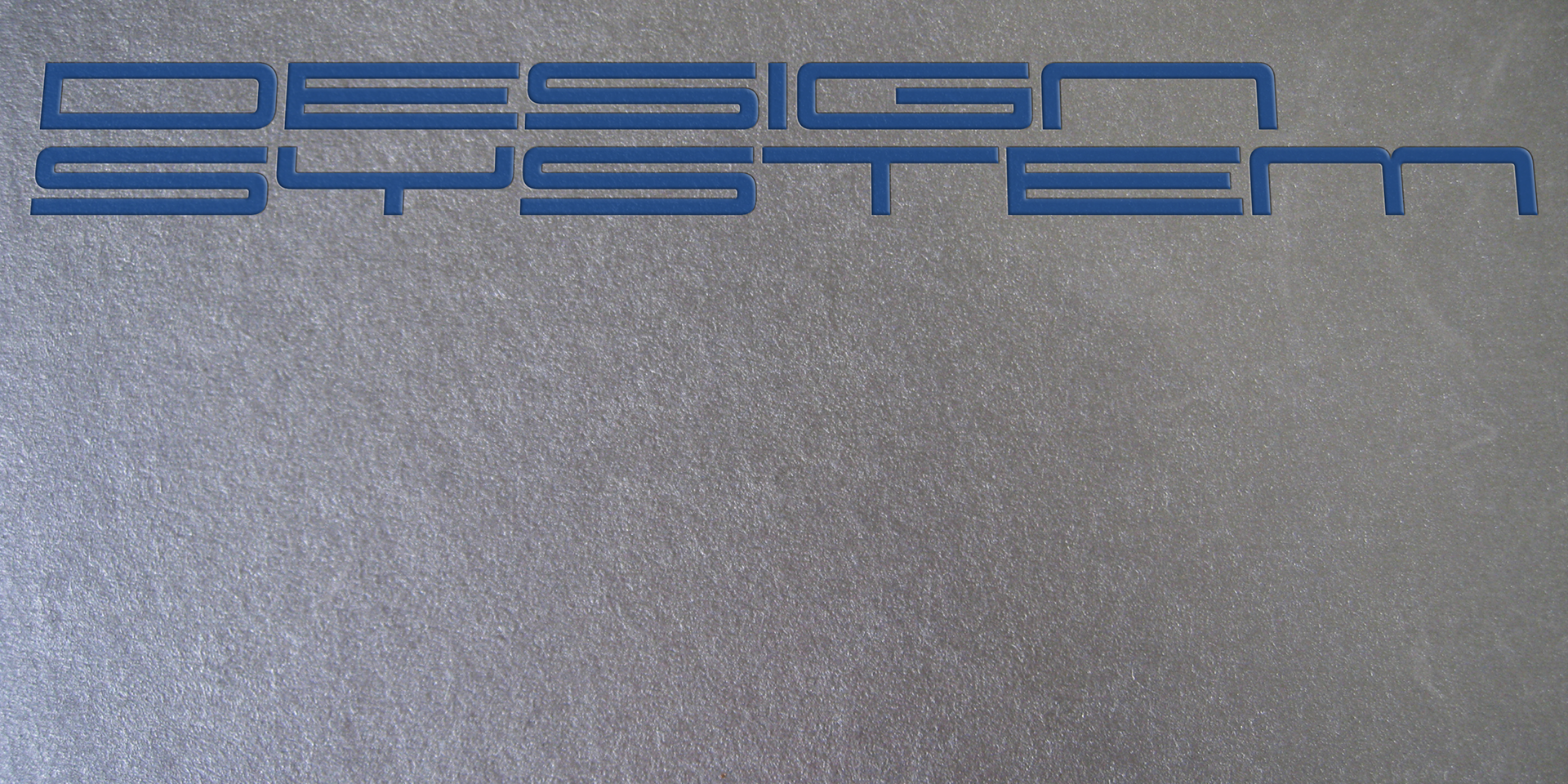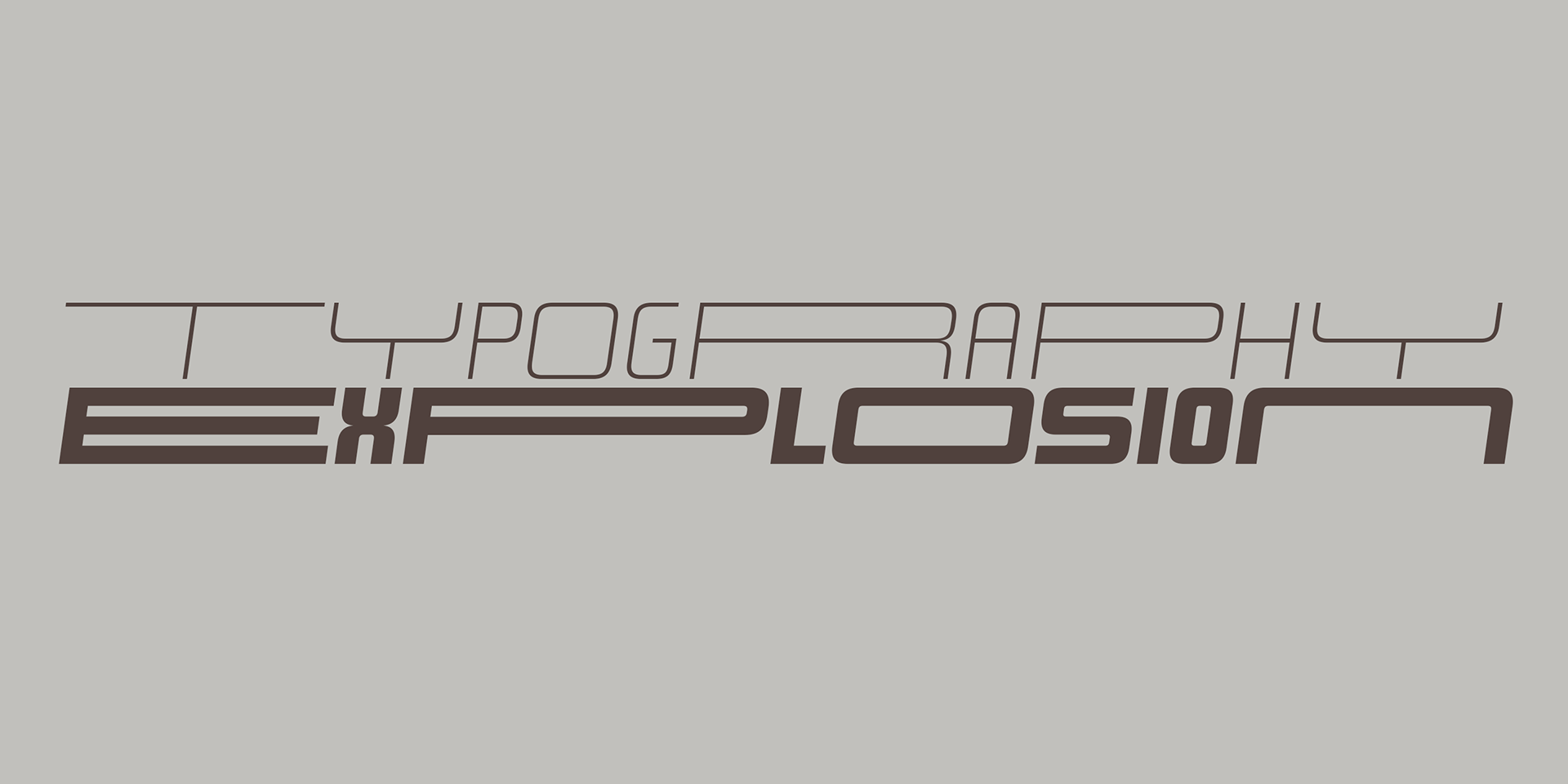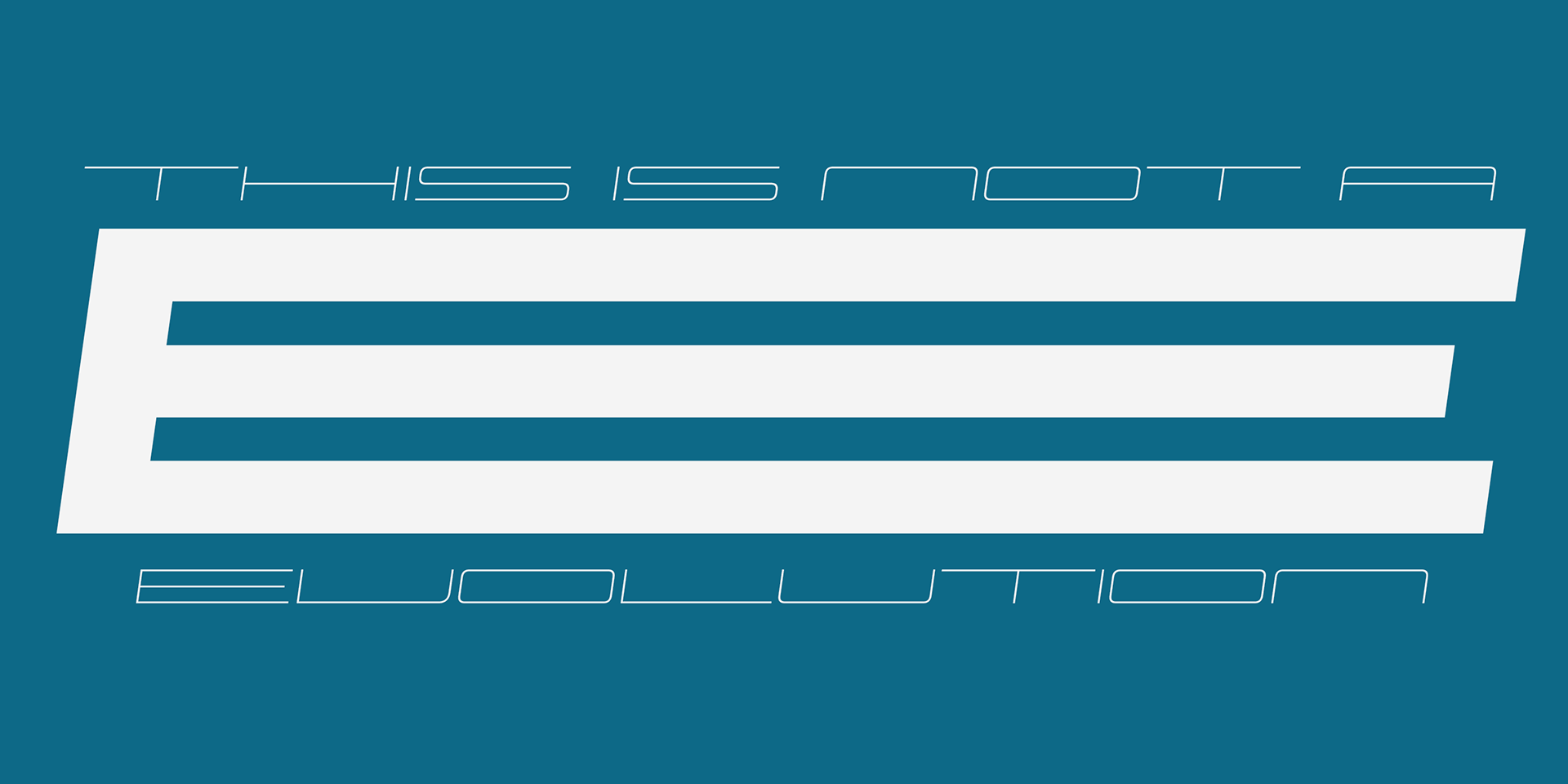
Design System
Design System is a versatile type system consisting of 70 font styles (5 weights × 7 widths × 2 slopes).
Ranging from 70s-style simple square sans to ultra-wide designs, it’s ideal for titles, logos, and text.
The fonts feature a clean, minimal form that adapts easily to any creative context, without restricting your design direction.
What’s more, all styles are harmoniously crafted, ensuring they can be mixed and matched seamlessly without visual dissonance.